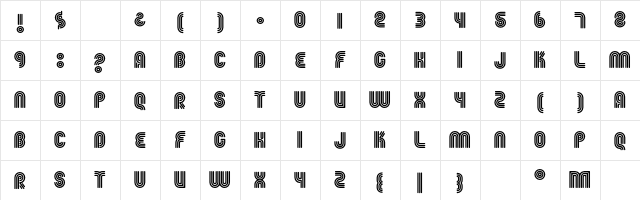
Fgroove SeventySix Free Font
Fgroove SeventySix
Style: SeventySix
Design Context for Fgroove
Fgroove is a composed and adaptable typeface that performs quietly and consistently across a wide range of design contexts.